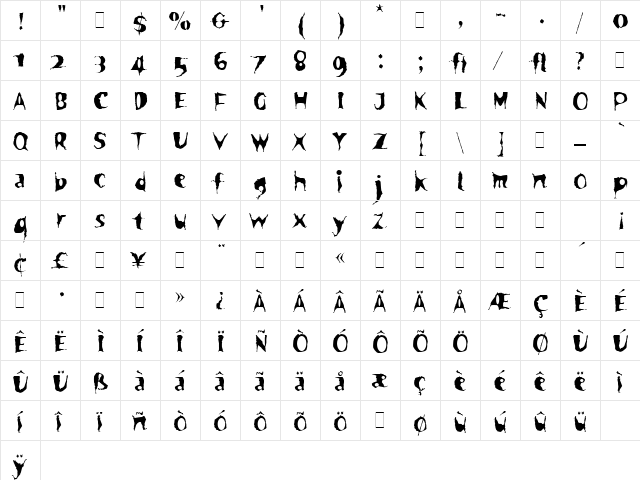
Spooky LET Plain
Design Context for Spooky LET Typeface
Spooky LET is a composed and adaptable typeface that performs quietly and consistently across a wide range of design contexts.